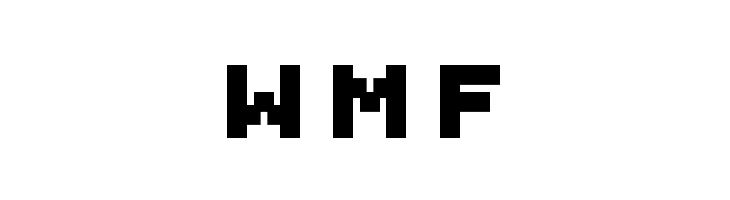
• G4 2004 Regular Font
• Fresh Marker Font
( Fonts by John Gauthier Designs )
A bold, handwritten-style font with thick, rounded strokes.
• GRAYSTROKE-Italic Font
( Fonts by Nestor Delgado )
A modern, italicized font with sleek, angular characters and a dynamic appearance.
• GRAYSTROKE Font
( Fonts by Nestor Delgado )
A bold, geometric font with a modern, monospaced appearance.
• DAGGERSQUARE Font
( Fonts by Nestor Delgado )
A bold, geometric font with a modern and assertive style.
• DAGGERSQUARE-OBLIQUE Font
( Fonts by Nestor Delgado )
A modern, oblique font with bold, angular characters and a dynamic style.
• seagle Font
( Fonts by Nestor Delgado )
A modern, geometric font with clean lines and a futuristic feel.
• GROTESKIA Font
( Fonts by Nestor Delgado )
A bold, modern sans-serif font with geometric lines and a slightly condensed style.
• GROTESKIA-OBLIQUE Font
( Fonts by Nestor Delgado )
A modern, oblique font with a sleek and dynamic style.
• Enfatica-Normal Font
( Fonts by Nestor Delgado )
A bold, condensed, and geometric font with a modern aesthetic.